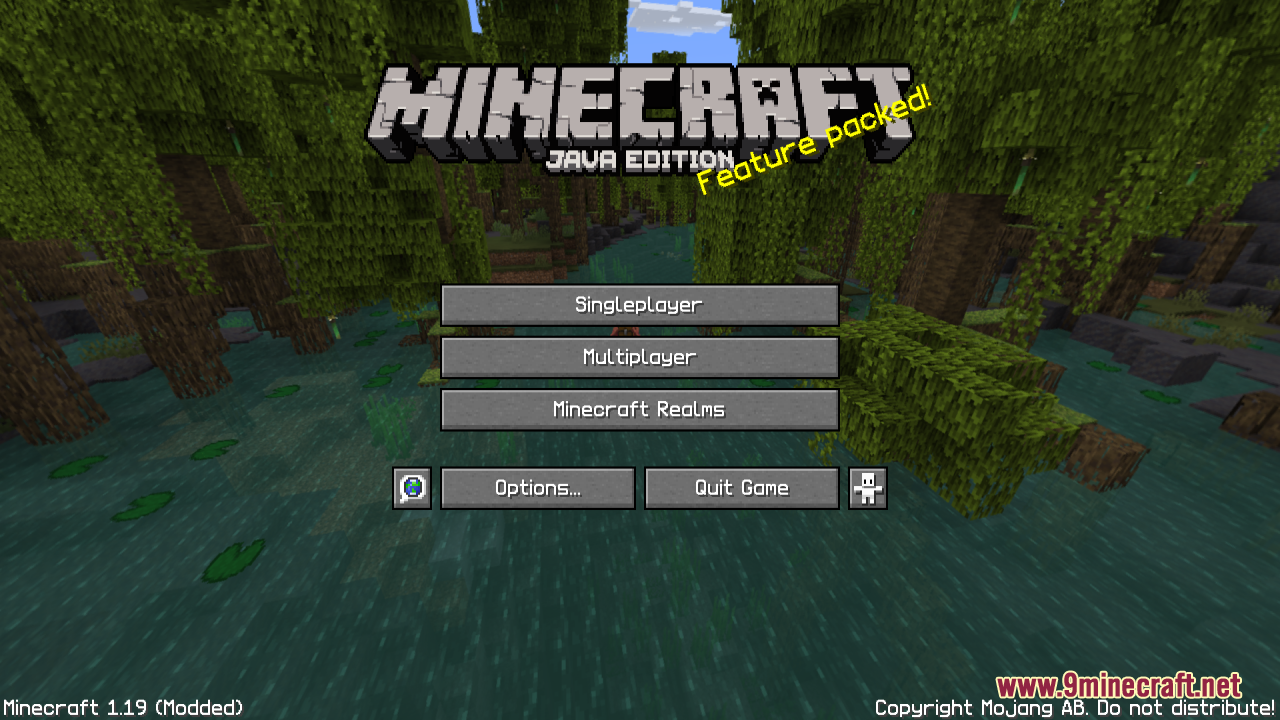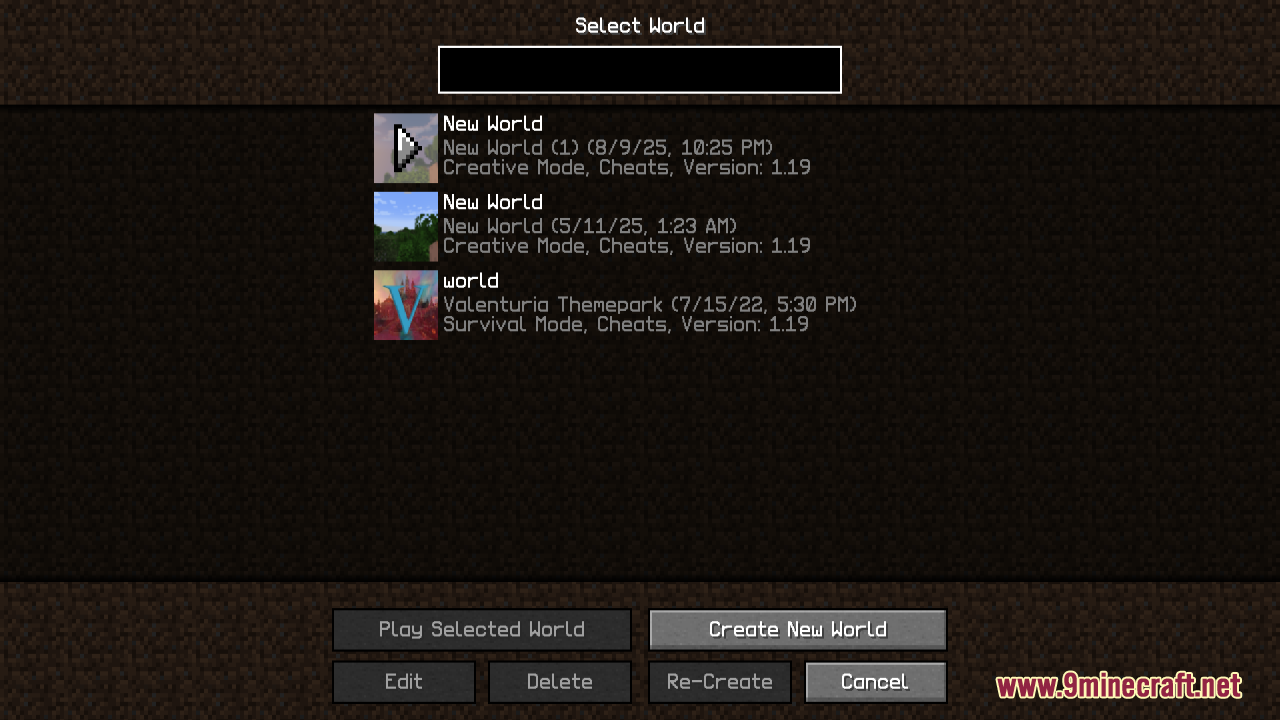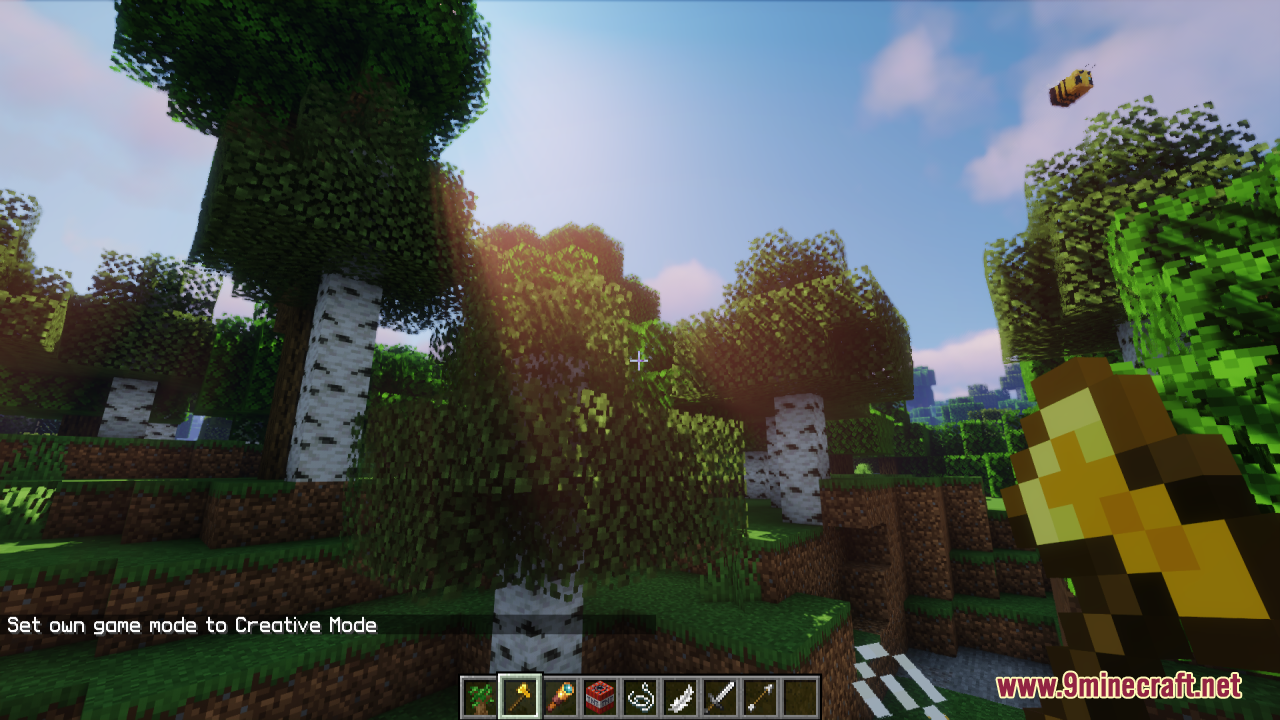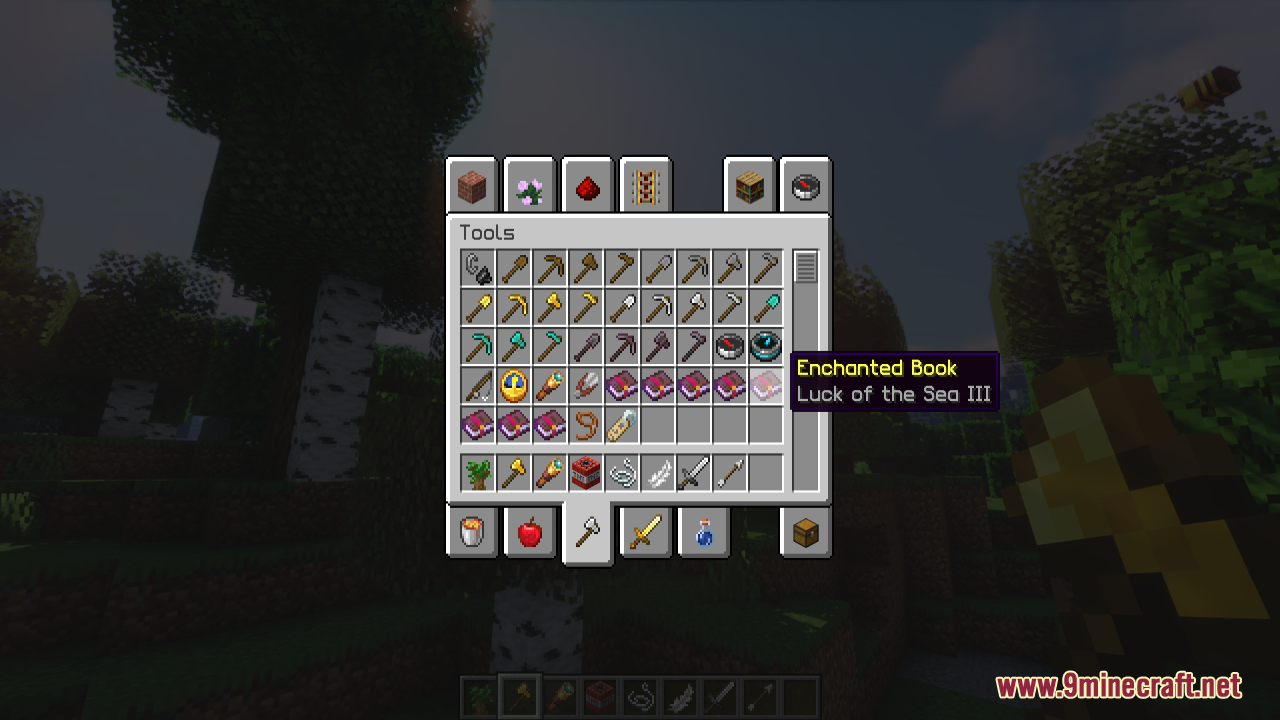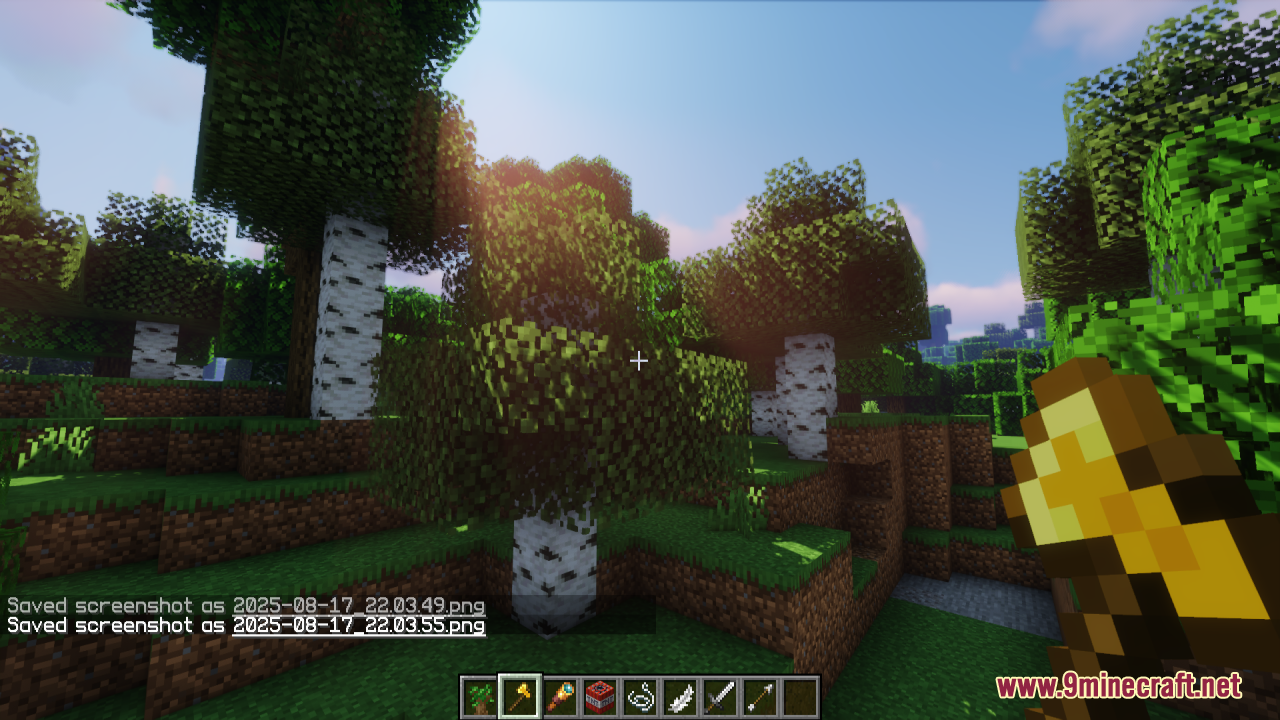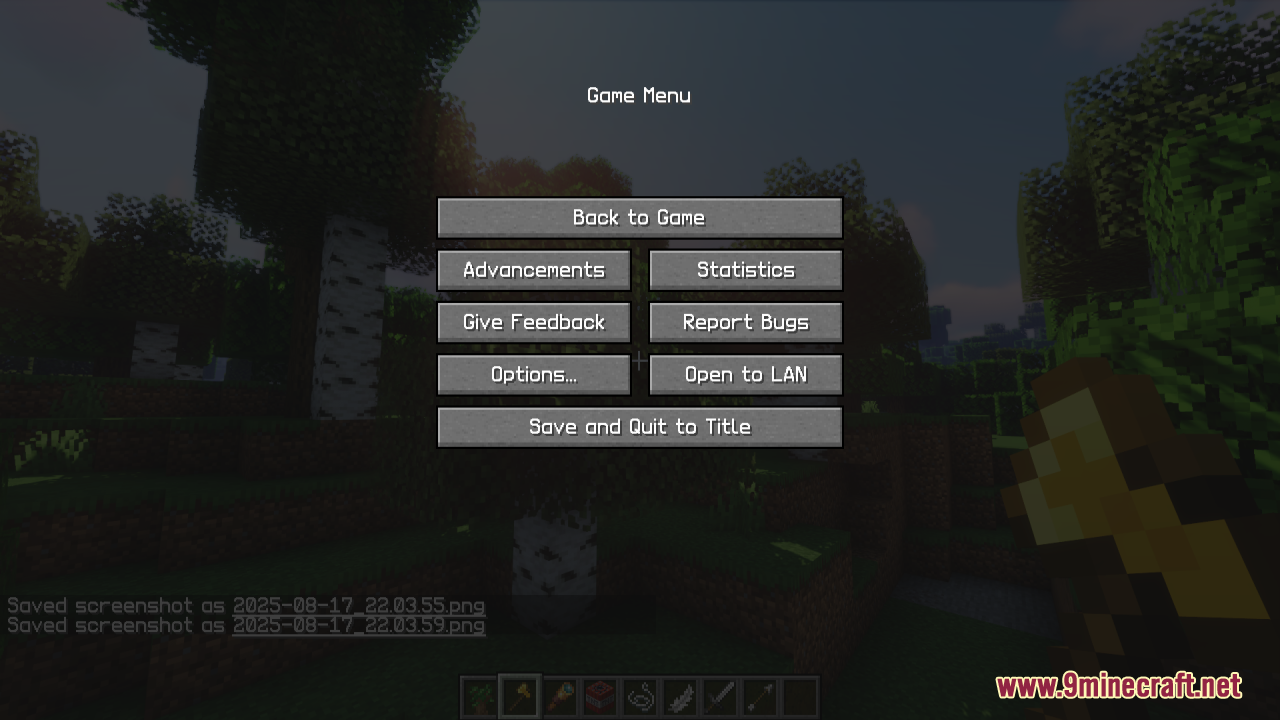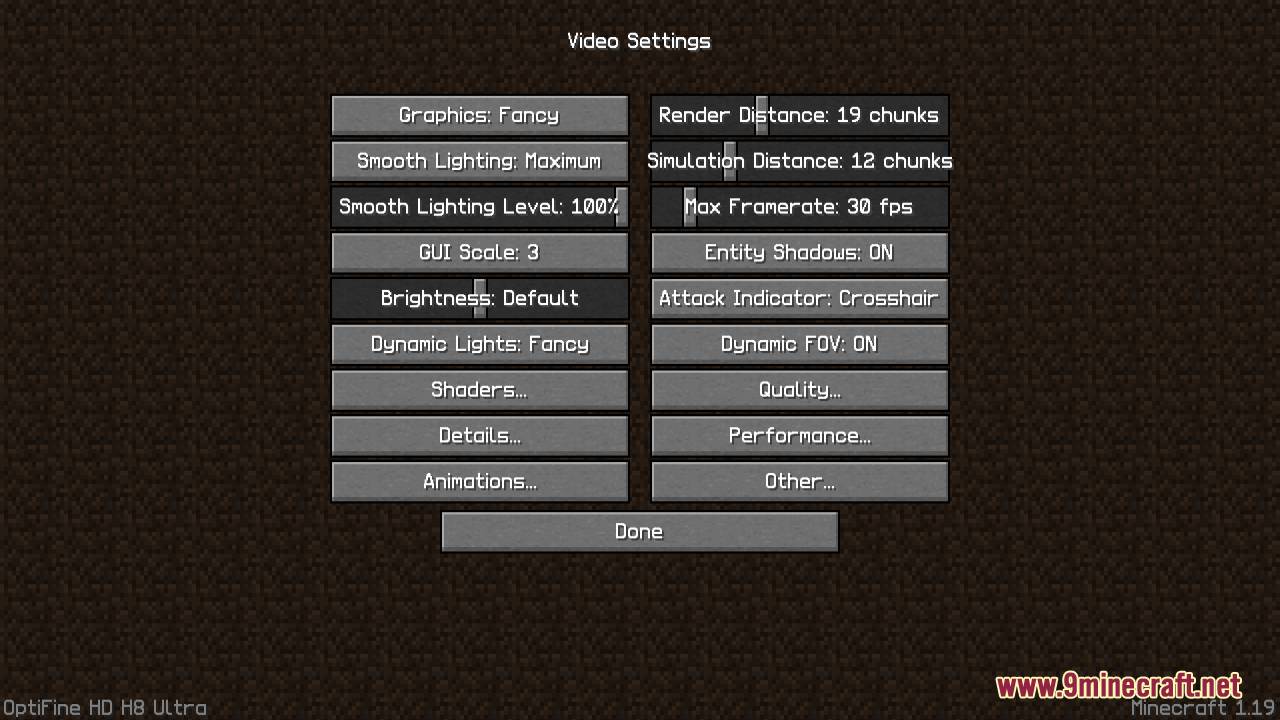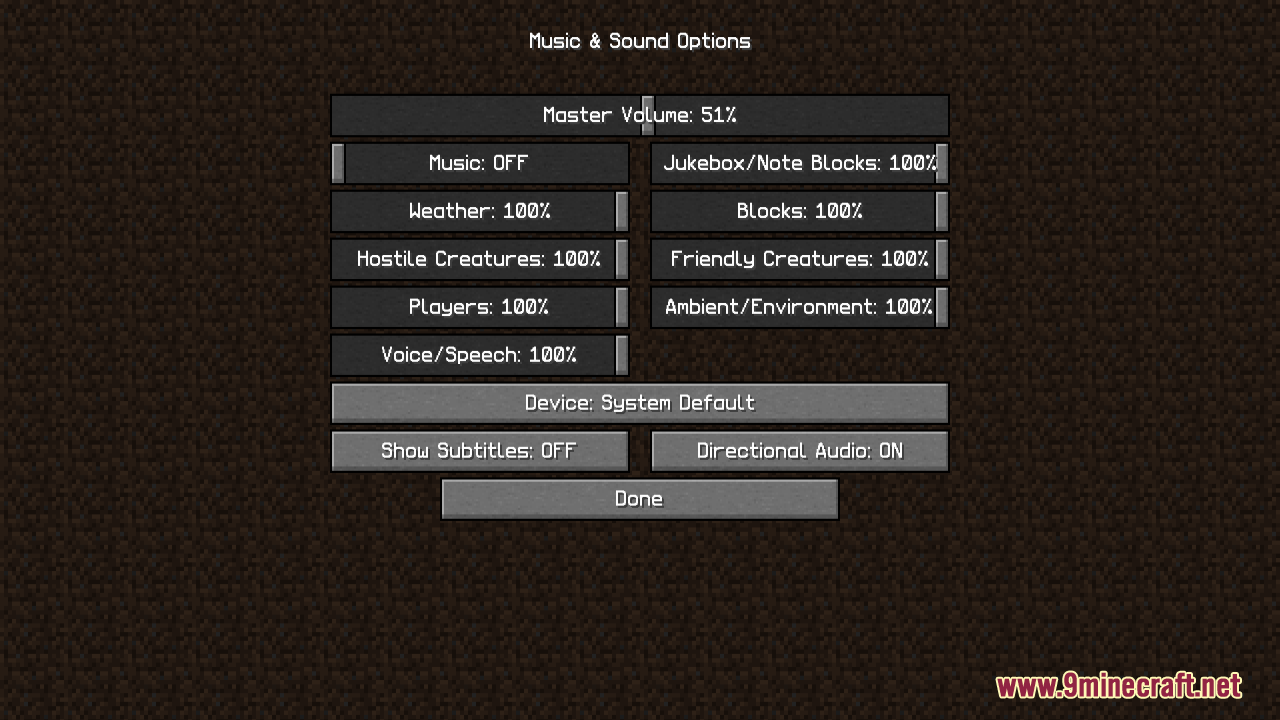
Flow Font Resource Pack (1.21.11, 1.20.1) – Texture Pack
Flow Font Resource Pack is a sleek 32× font overhaul for Minecraft that transforms the default blocky font into a smoother, higher-resolution version – ideal for enhancing readability and aesthetic appeal. It retains the vanilla style, only replacing the font textures (basic and accented Latin characters), making it a subtle yet noticeable UI enhancement. Lightweight and mod-independent, this pack is perfect for players seeking polished visuals and smoother text without altering gameplay mechanics.